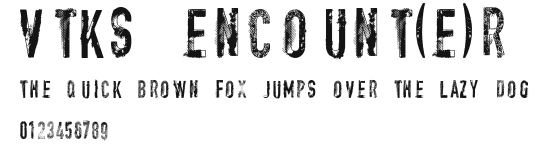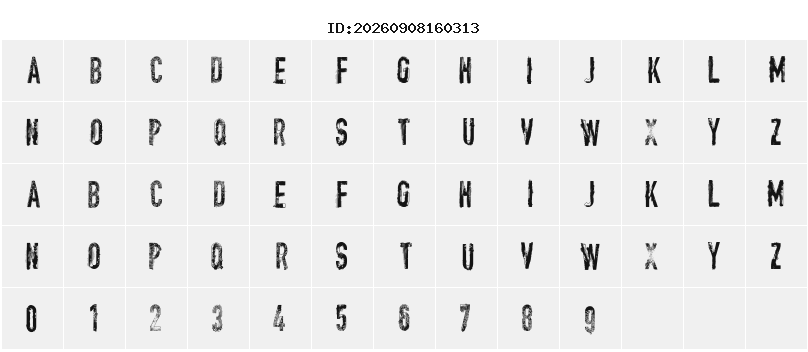
• Font Name: vtks encount(e)r
• Designer: douglas vitkauskas
About vtks encount(e)r.ttf
vtks encount(e)r.ttf is a modern, elegant sans-serif font designed for ultimate readability and visual harmony. Perfect for branding, headlines, web design, and print materials.